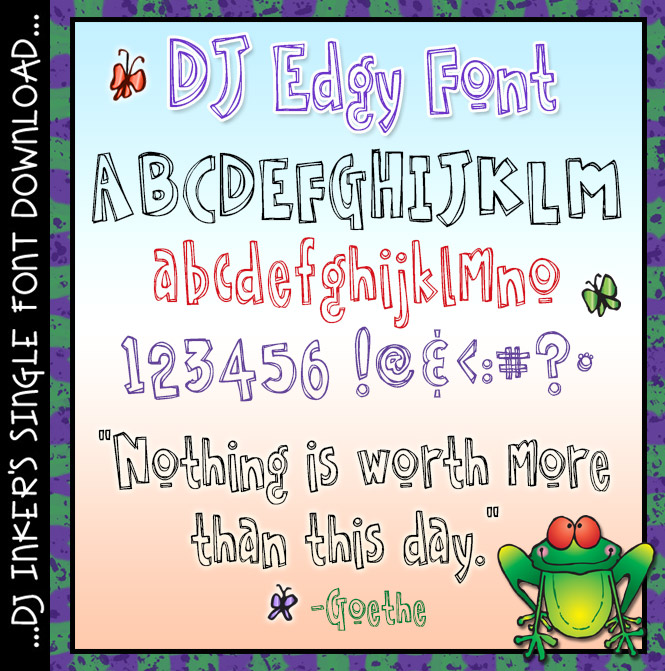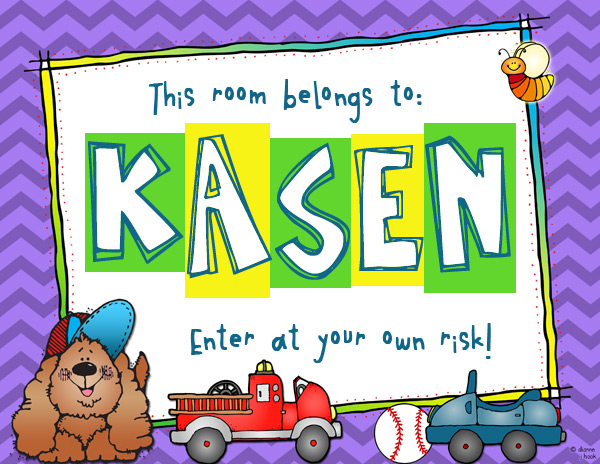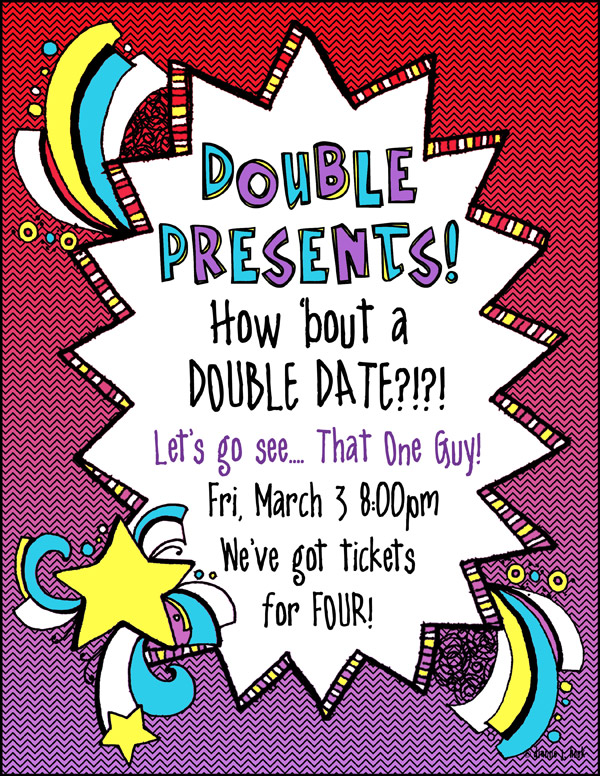
DJ Edgy Font Download
Want your typing to be bold, fun & just a little bit edgy? Well,
you'll be wild about 'DJ Edgy.' This awesome font is
excellent for headlines & fliers, parties, concerts, teens & tweens,
art, music & more.